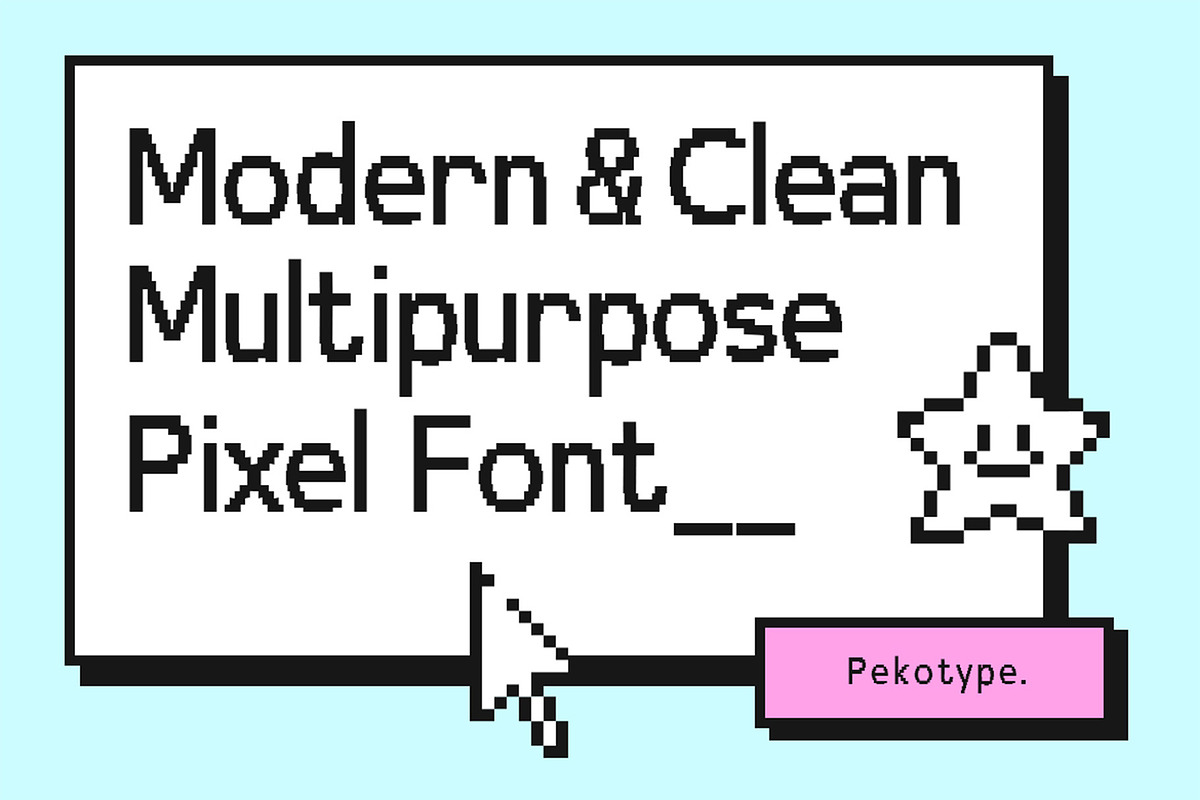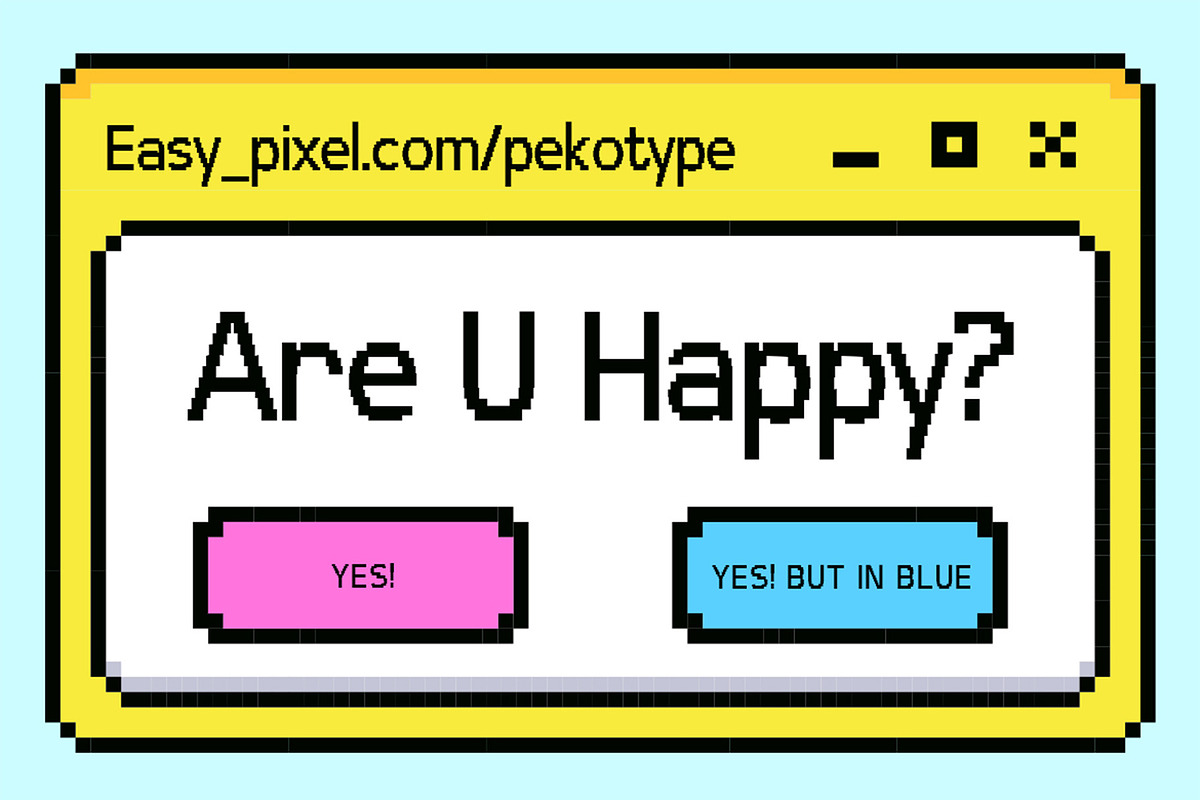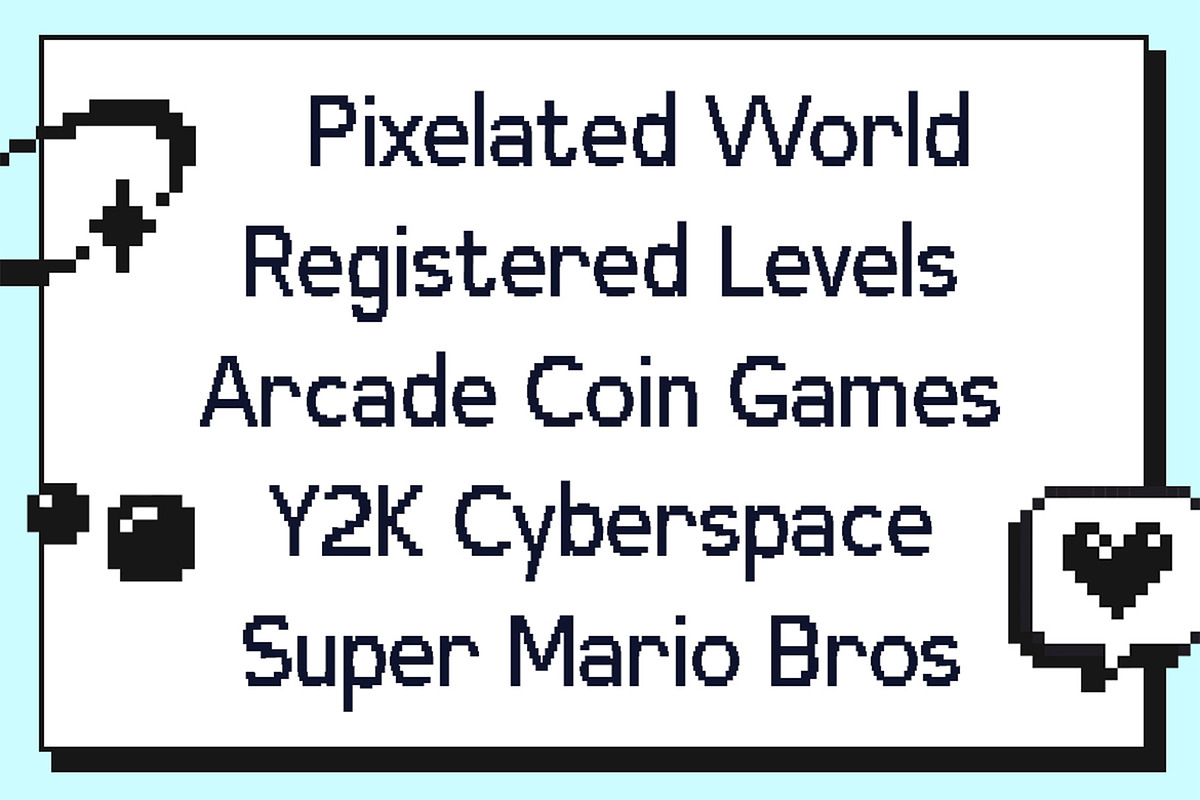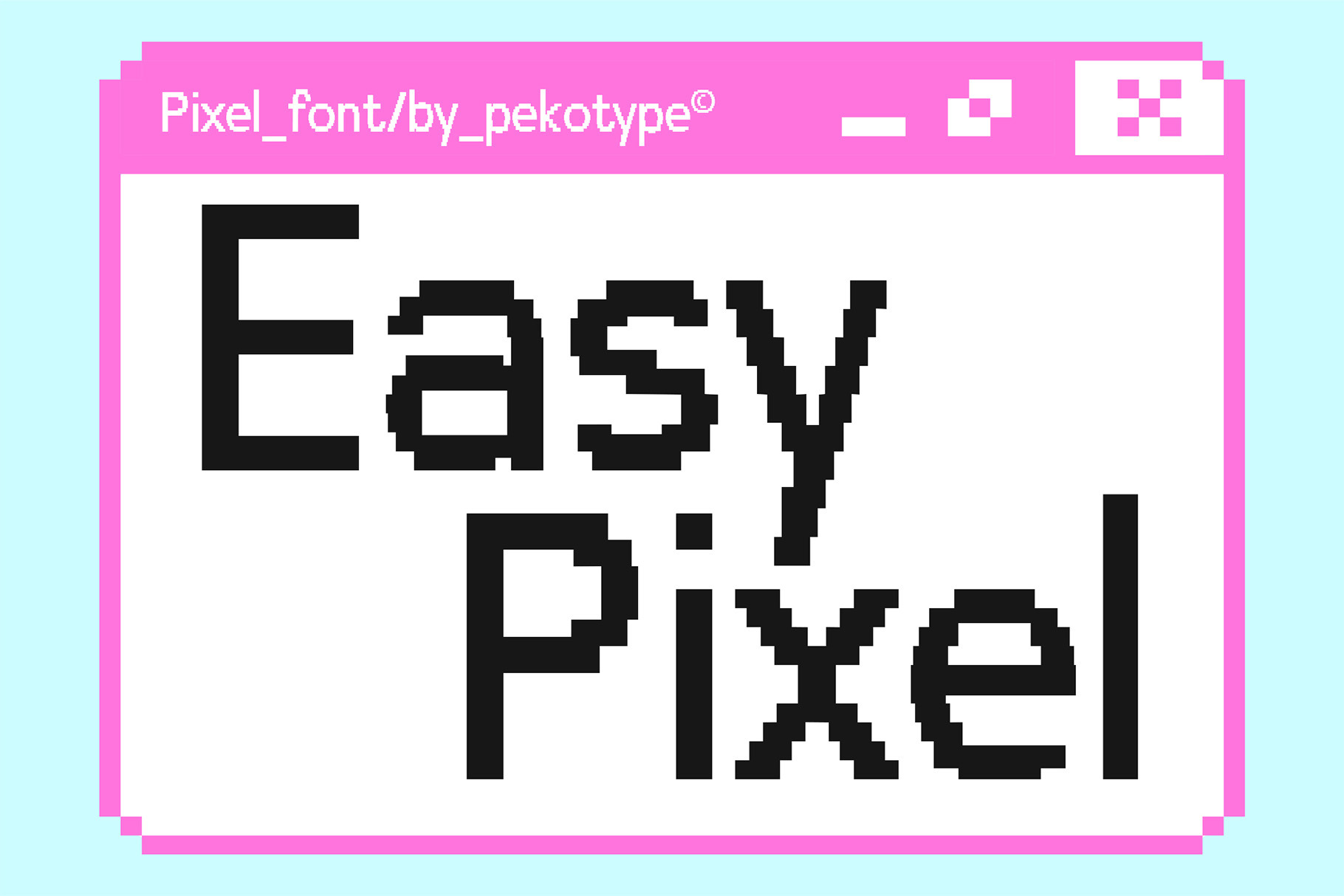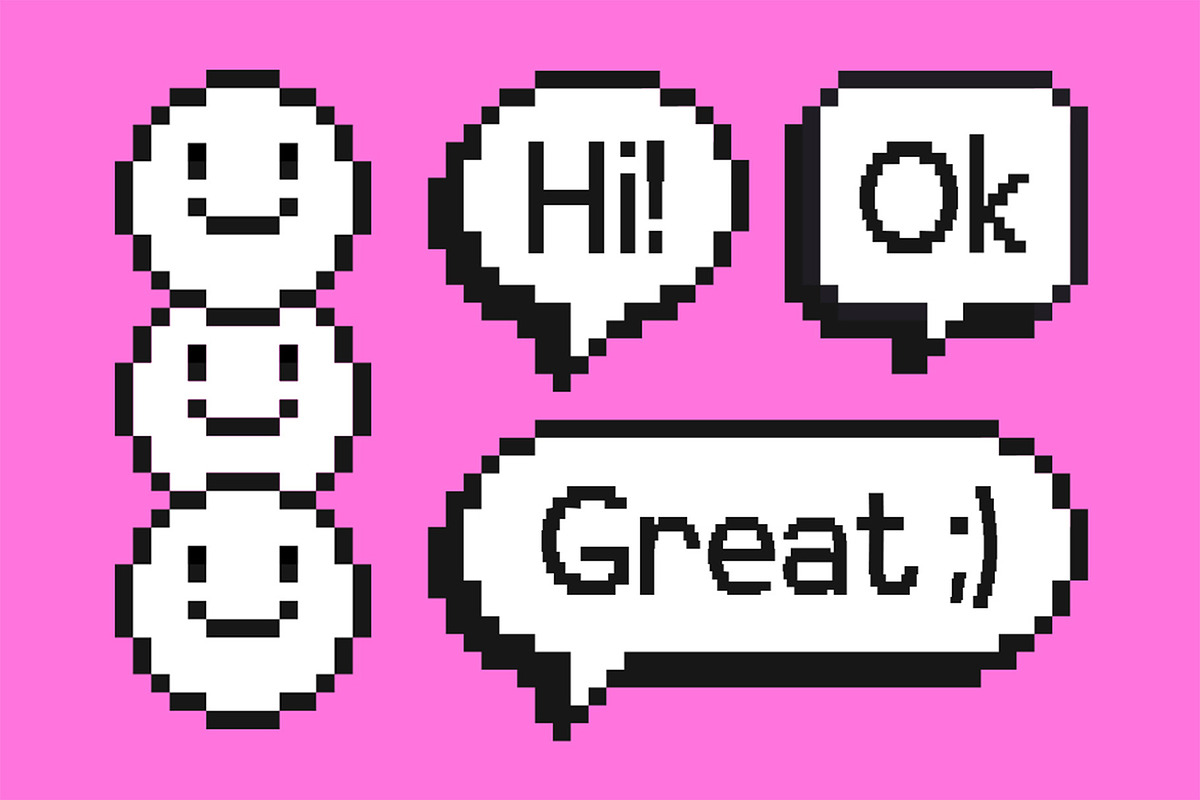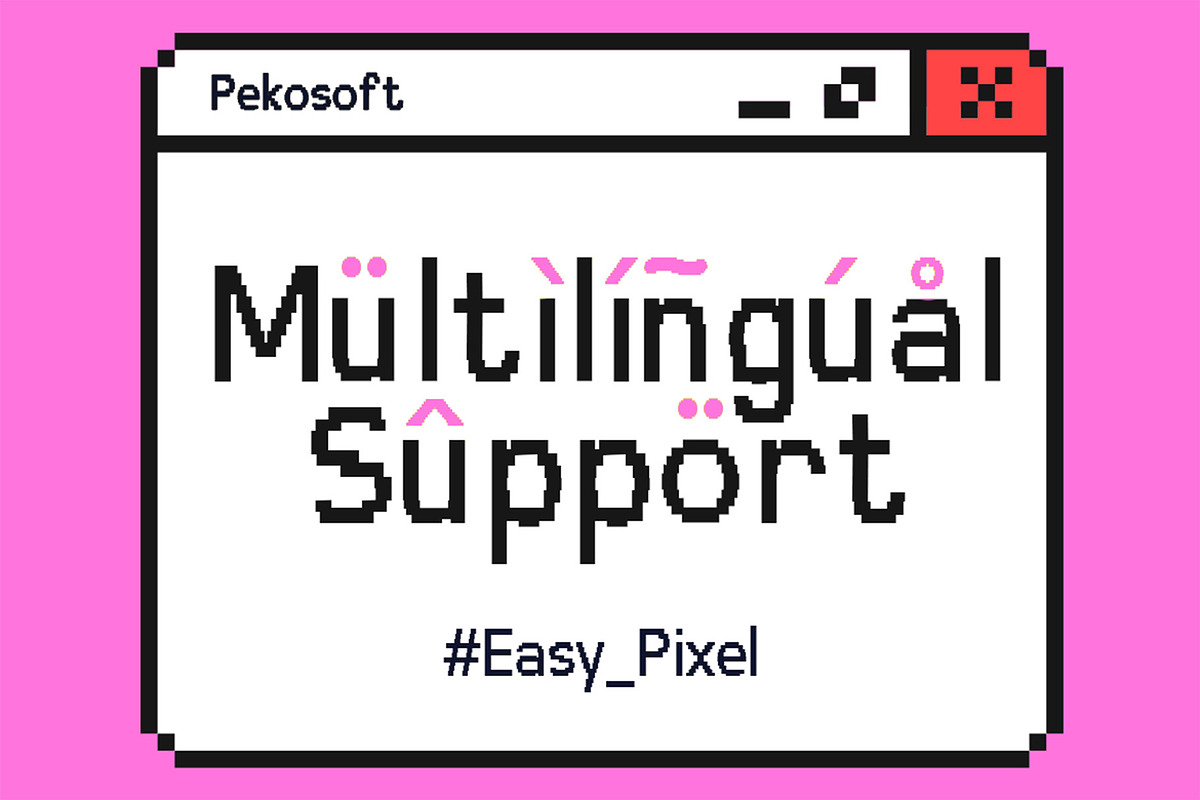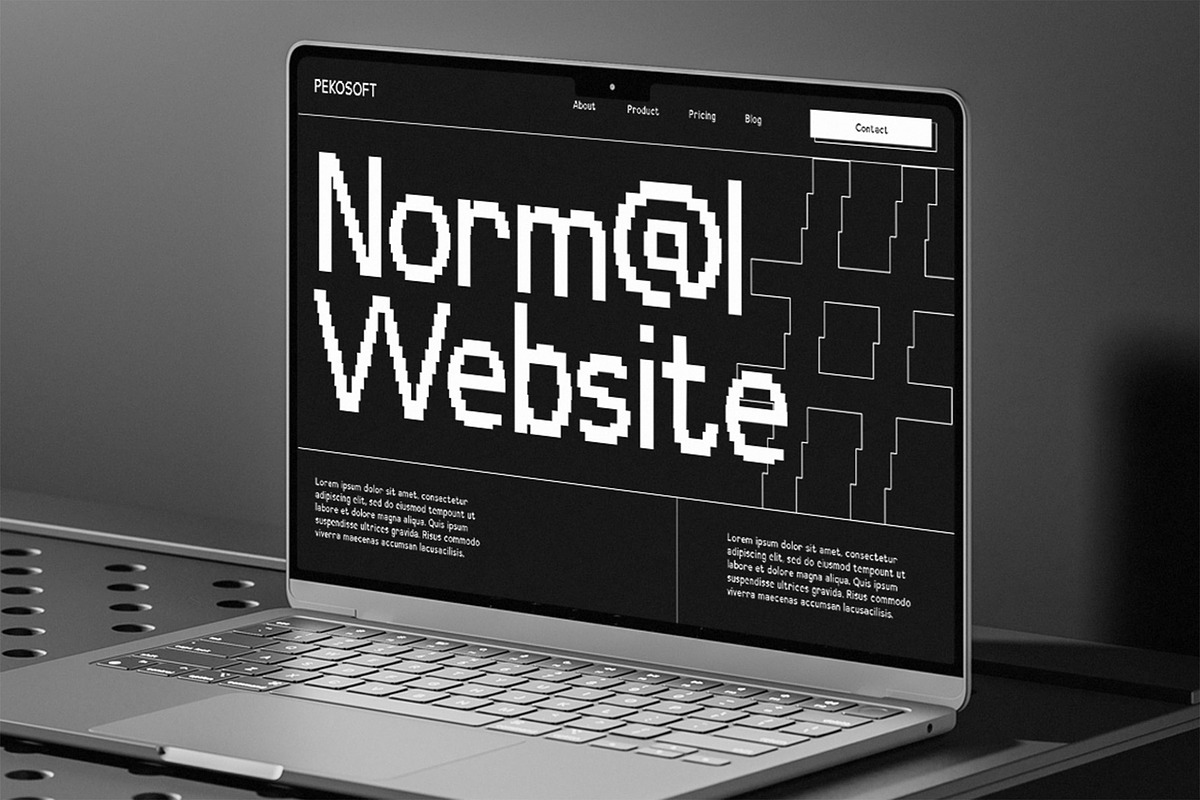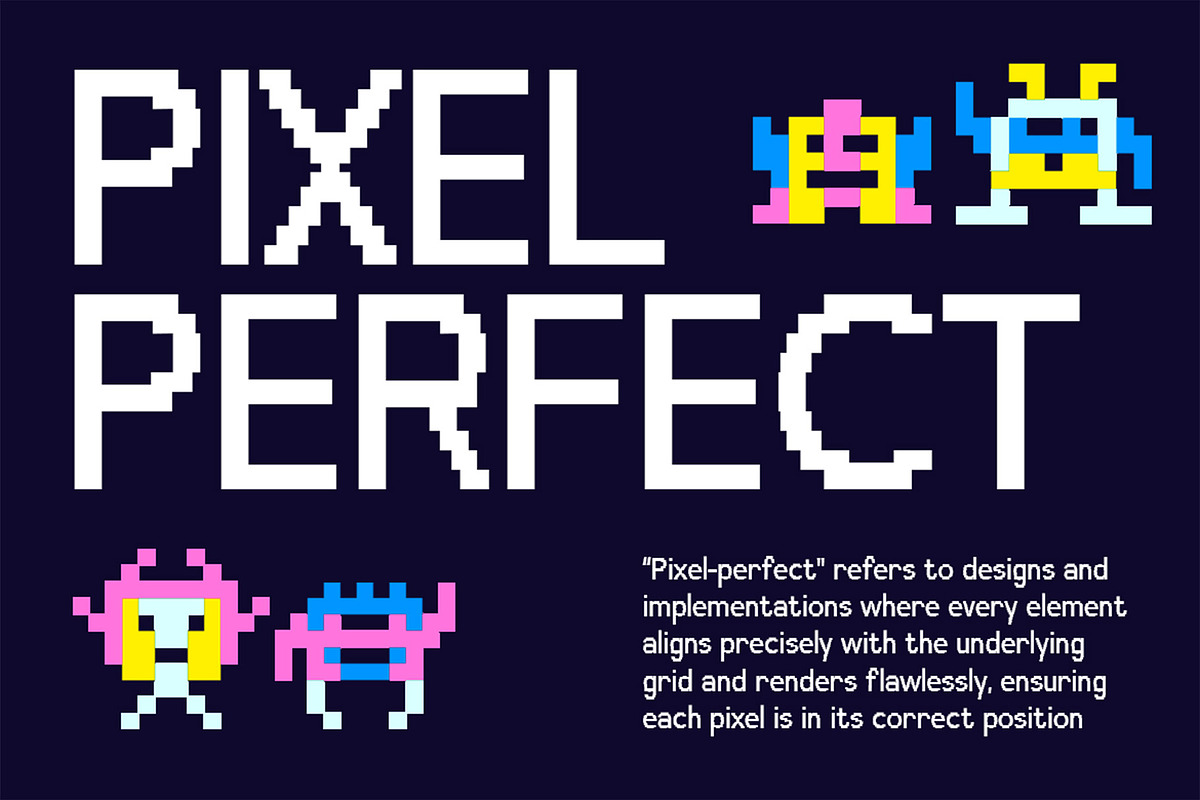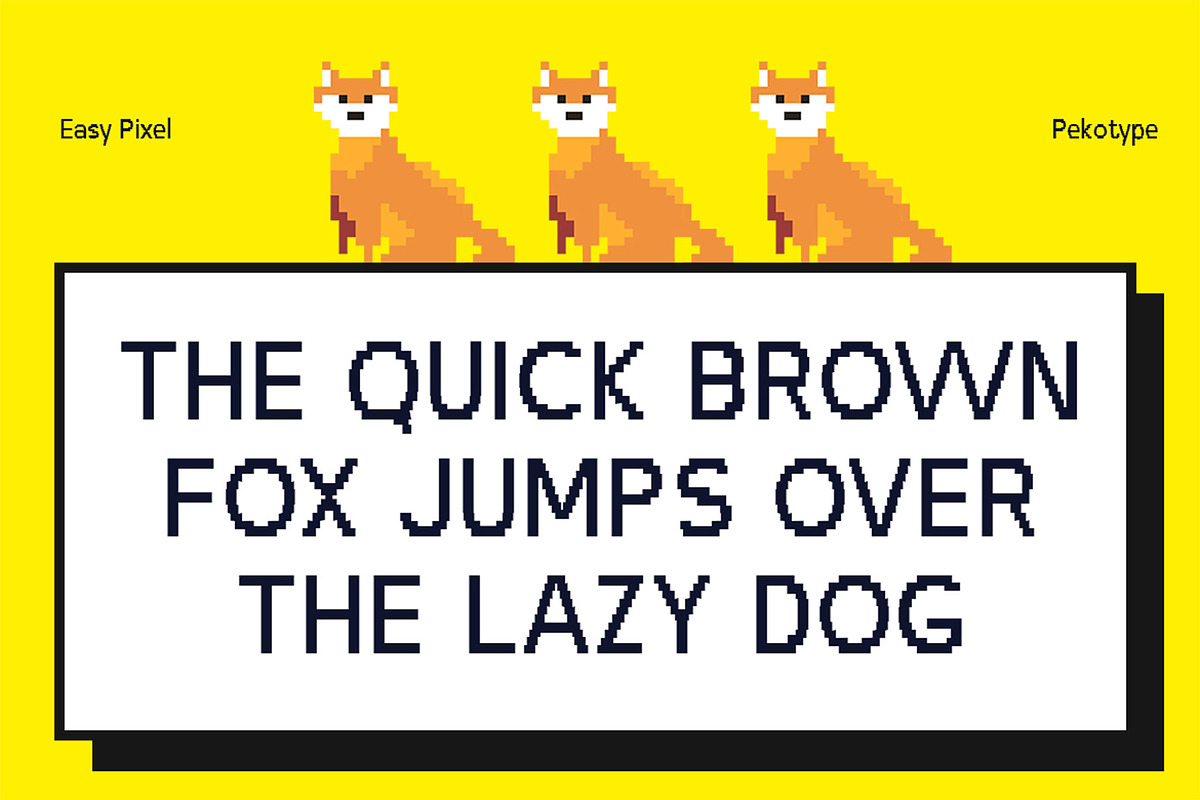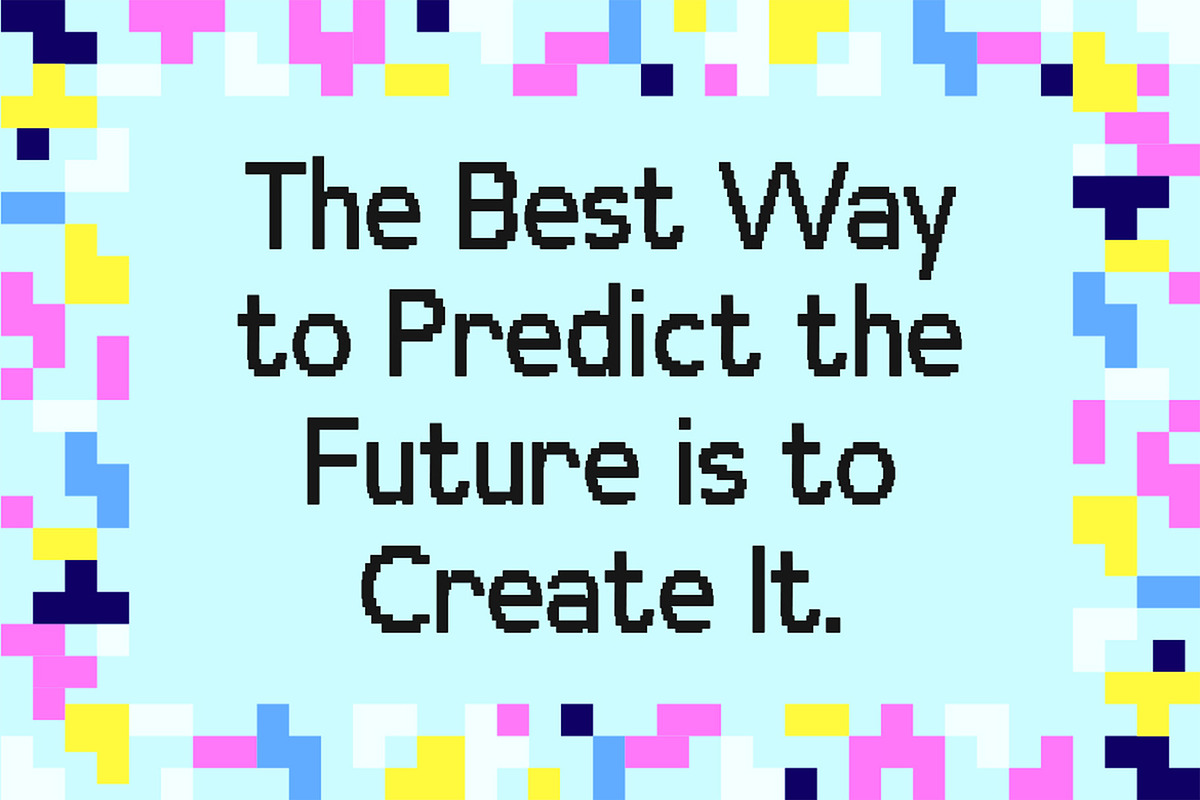
Easy Pixel - Modern Pixel Font
EASY PIXEL – Clean & Modern Pixel Font for Y2K, Arcade, and Game-Inspired Designs
Step into the pixel-perfect world with EASY PIXEL, a modern pixel font designed to harmonize bold nostalgia and futuristic edge. Inspired by retro arcade games and Y2K digital vibes, this typeface delivers a clean and sharp look that fits a wide range of creative projects.
Whether you're designing for games, branding, logos, packaging, social media, posters, or print materials, EASY PIXEL is your go-to font for a strong visual impact. Its neat pixel grid structure ensures legibility at all sizes while keeping your design fresh, modern, and tech-savvy.
Perfect for retro gaming aesthetics, arcade interfaces, futuristic layouts, and multipurpose digital projects, EASY PIXEL is crafted to boost your creativity and make your design stand out.
- Number, symbol, & punctuation
- Modern pixel design with a clean, geometric structure
- Optimized for headlines, display, UI, and branding
- Great for Y2K, gaming, and retro digital themes
Unlock the full power of pixels with EASY PIXEL – a versatile font that bridges the past and the future in style.